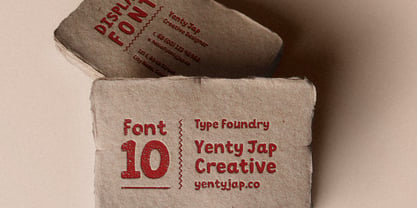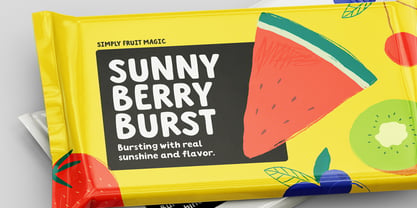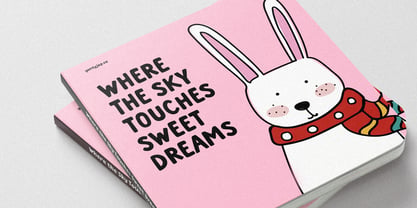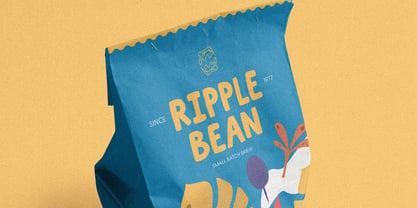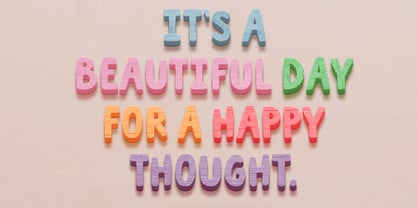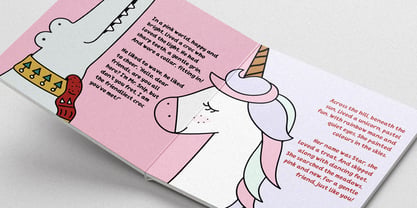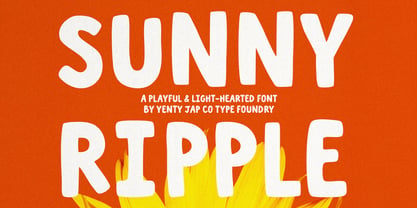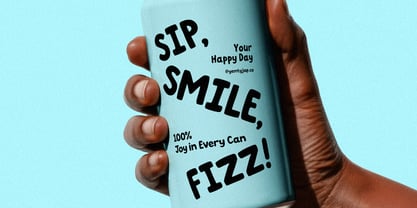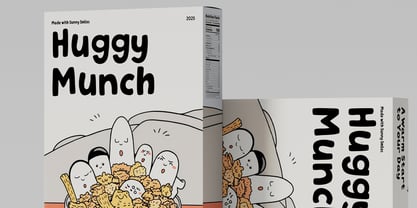
YJC Sunny Ripple
by Yenty Jap Co
The YJC Sunny Ripple Font Family was designed by Yenty Jap and published by Yenty Jap Co. YJC Sunny Ripple contains 1 styles. More about this family
YJC Sunny Ripple is a uniquely charming display font designed to bring warmth, personality, and an authentic touch of human connection to your projects. With its friendly, rounded forms and deliberately uneven, "wobbly" baseline, this typeface feels less like a sterile digital creation and more like a cherished doodle, perfectly embodying the spirit of a sincere, handwritten note. A Story in Every Stroke The character of YJC Sunny Ripple is built around our brand voice: playful but sincere, light-hearted, and always a little hug in a sentence. Each letter features a generous, bold weight and soft terminals, making it highly readable while maintaining its whimsical nature. It’s a font that doesn't just display words—it tells a story and connects with your audience instantly. Why Choose Sunny Ripple? • Hand-Drawn Charm: Its distinctive, bouncy style adds immediate personality and a sense of effortless fun to any design. • High Impact Display: The bold weight ensures the font stands out, making it perfect for headlines, logos, and social media graphics where you need to communicate well and catch the eye. • Playful Versatility: It's equally at home on a child's storybook cover, a gourmet coffee package, a handmade goods label, or an uplifting poster. Ideal Usage & Achieved Tone YJC Sunny Ripple is your go-to typeface when your message needs to be friendly, approachable, and truthful. Packaging & Food: Best For: Cereal boxes, snack bars, coffee labels, artisanal goods. Tone Achieved: Homemade, Trustworthy, Delicious. Children's Media: - Best For: Picture book titles, educational materials, branding for toys. - Tone Achieved: Whimsical, Engaging, Gentle. Lifestyle & Social: - Best For: Instagram quotes, brand slogans, event flyers, motivational graphics. - Tone Achieved: Uplifting, Genuine, Energetic. Branding: - Best For: Logos for small businesses, craft brands, or personal blogs. - Tone Achieved: Authentic, Unique, Memorable. Give your designs a dose of genuine joy. Download YJC Sunny Ripple today and start sharing your story, one beautiful giggle at a time.